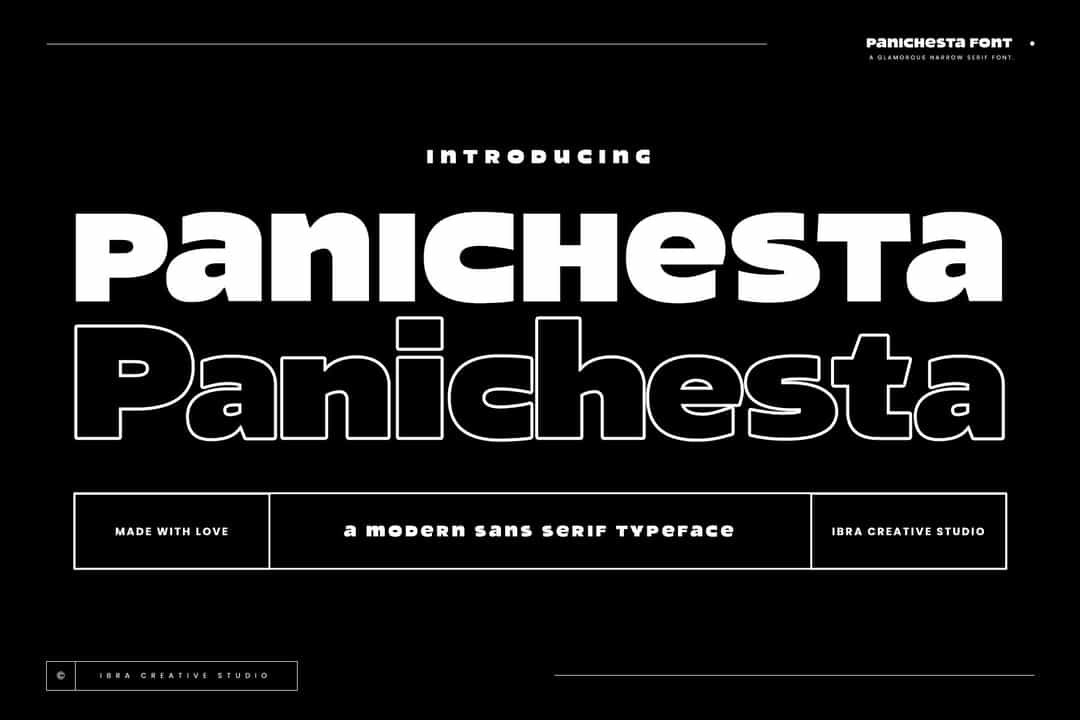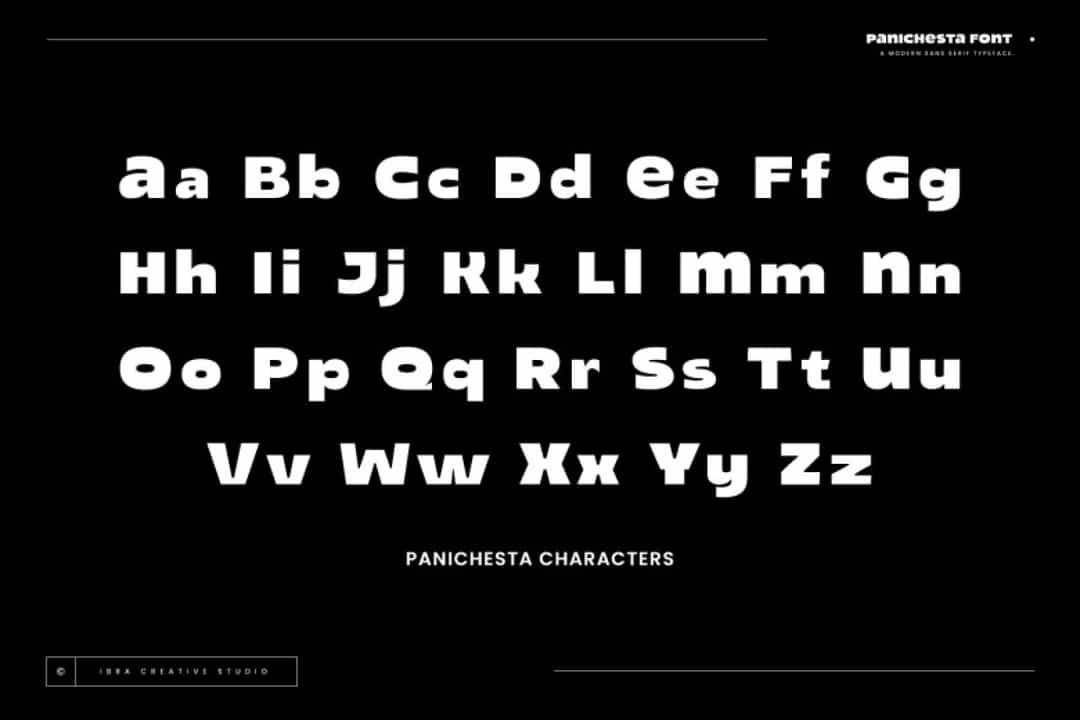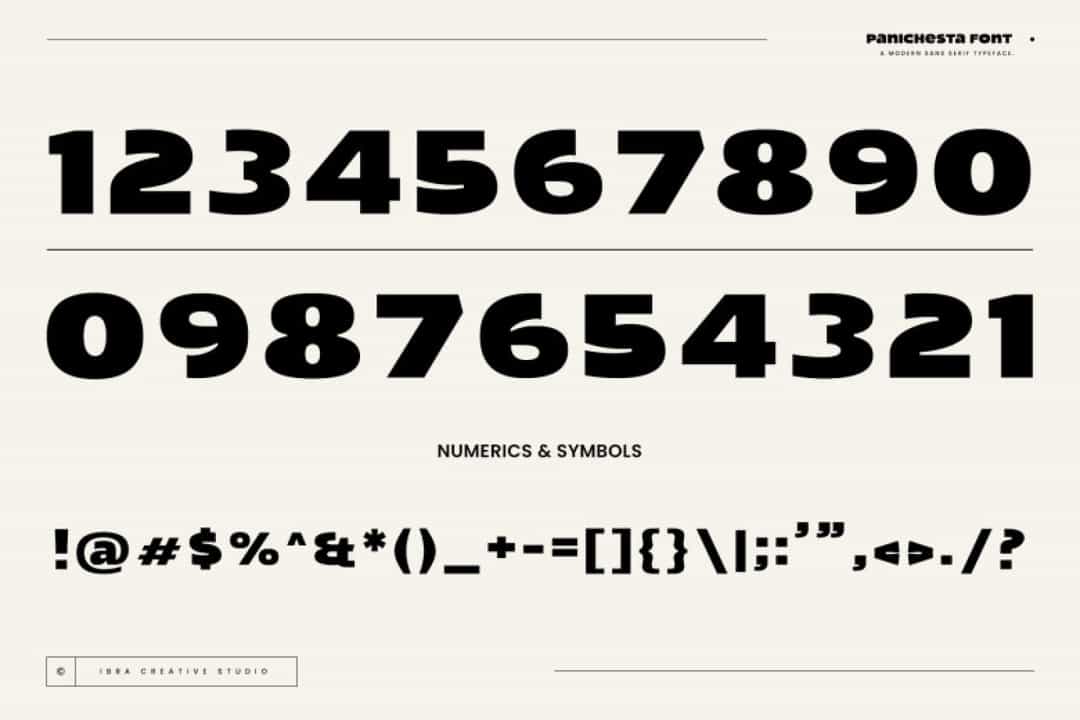
Panichesta, a modern sans serif typeface that seamlessly marries contemporary aesthetics with classic simplicity, boasts an elegant font design. This font’s crisp and refined appearance make it suitable for many different applications in design; while its balanced letterforms blend gentle curves with straight lines to convey elegance and ease of reading.